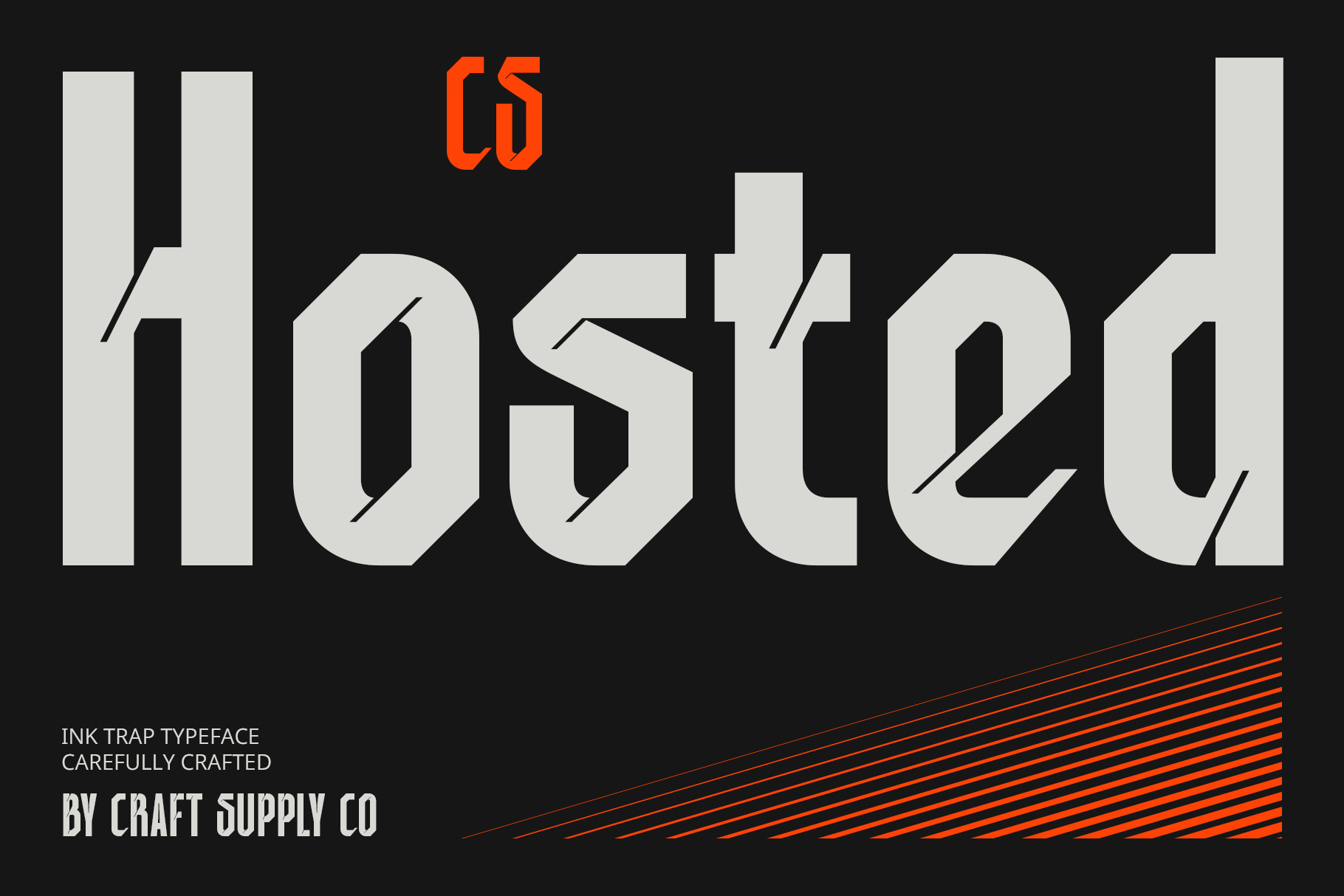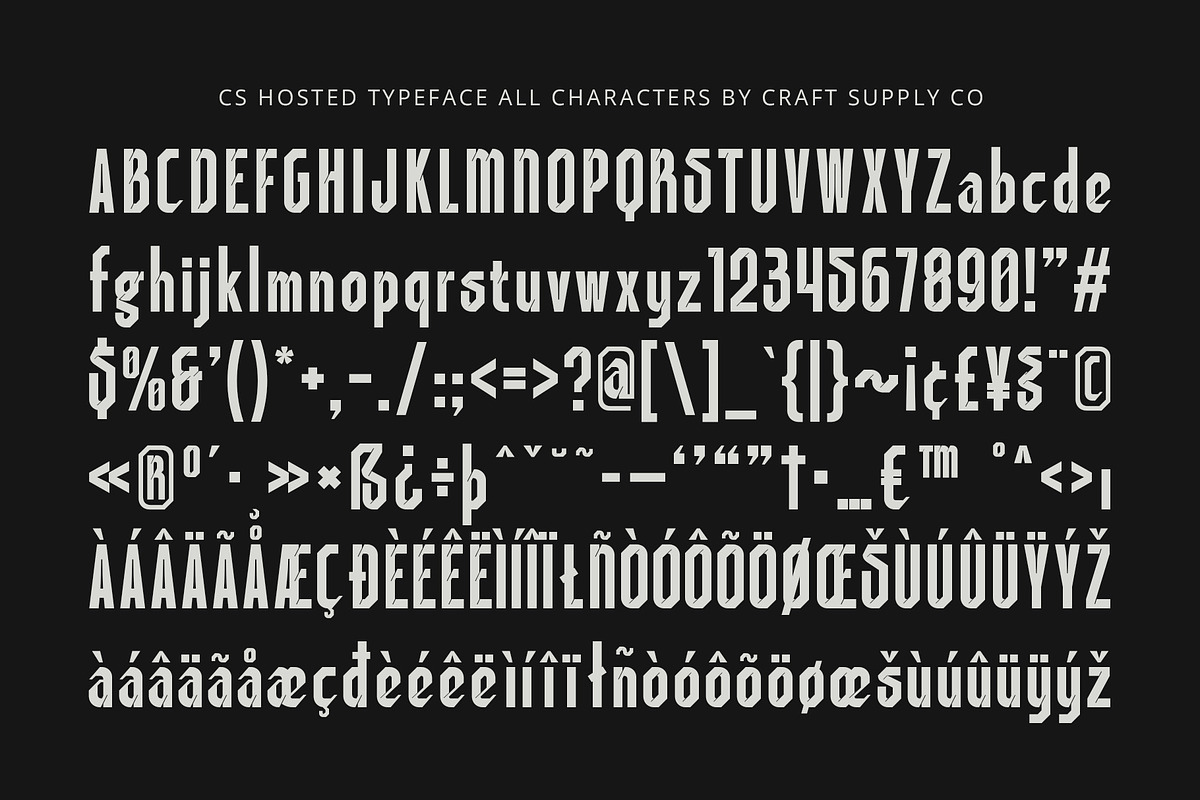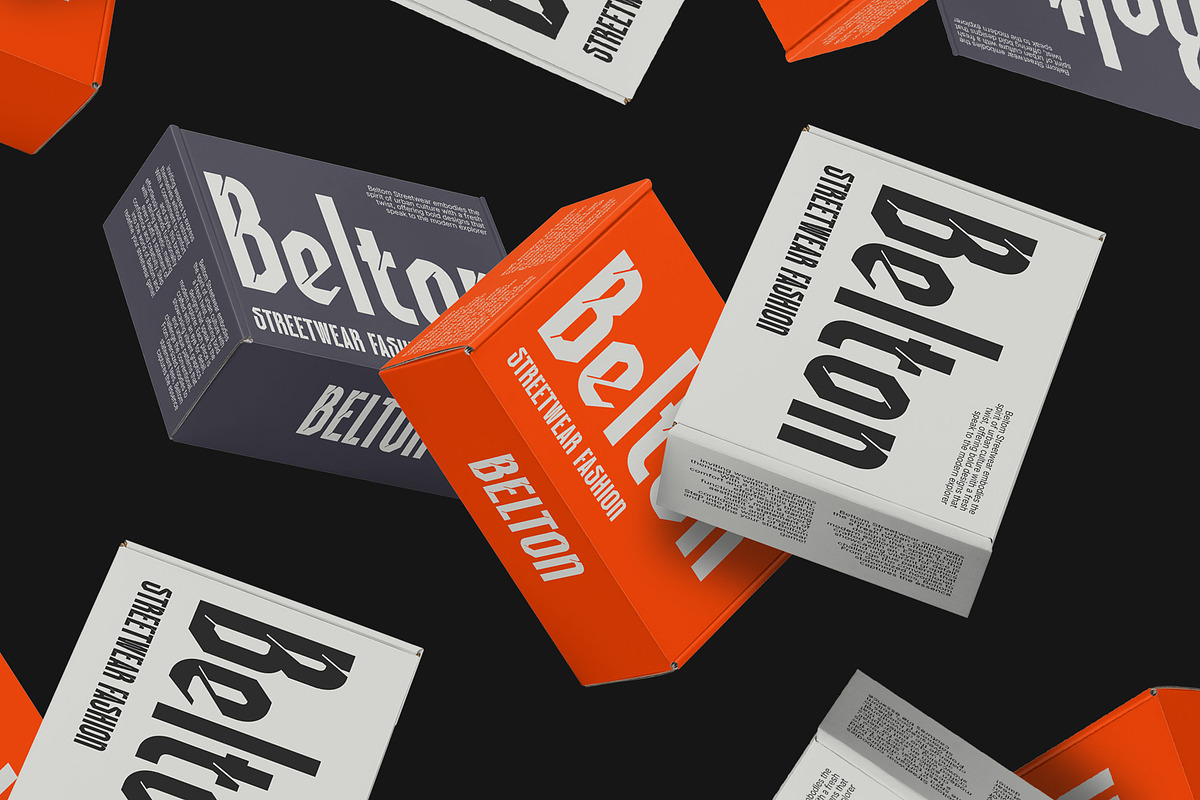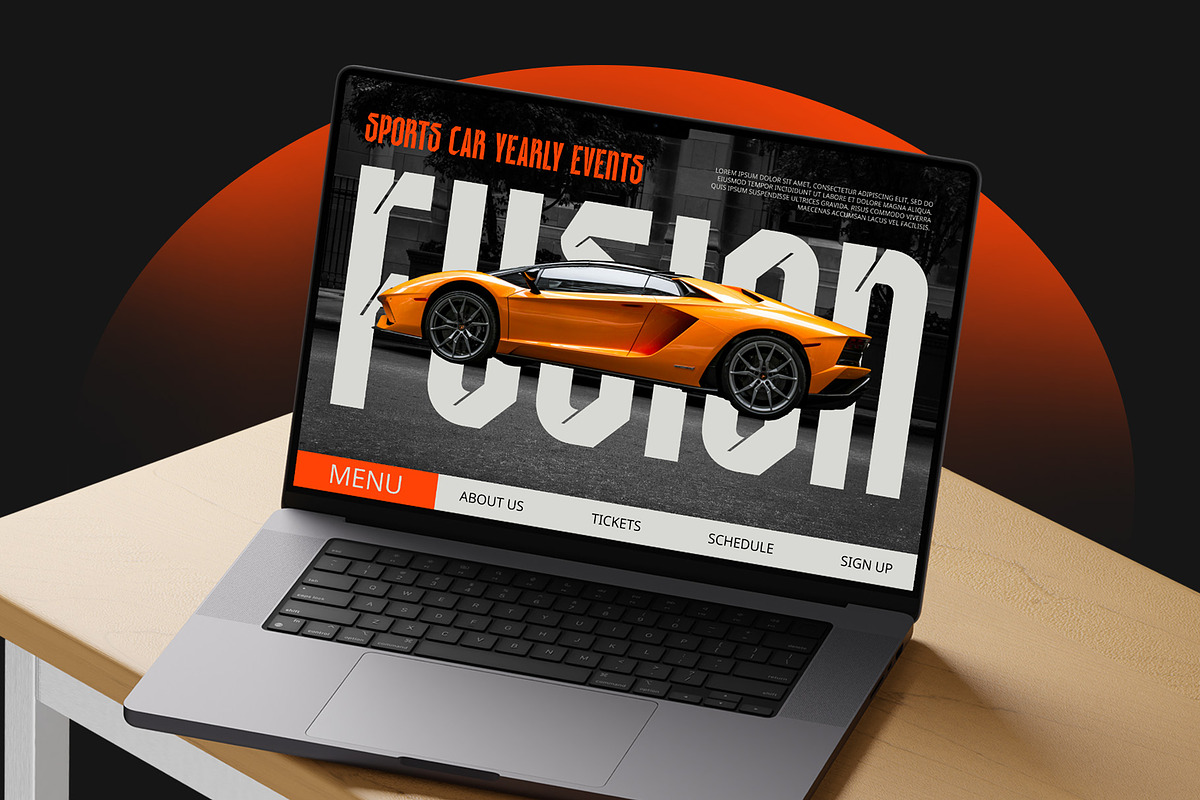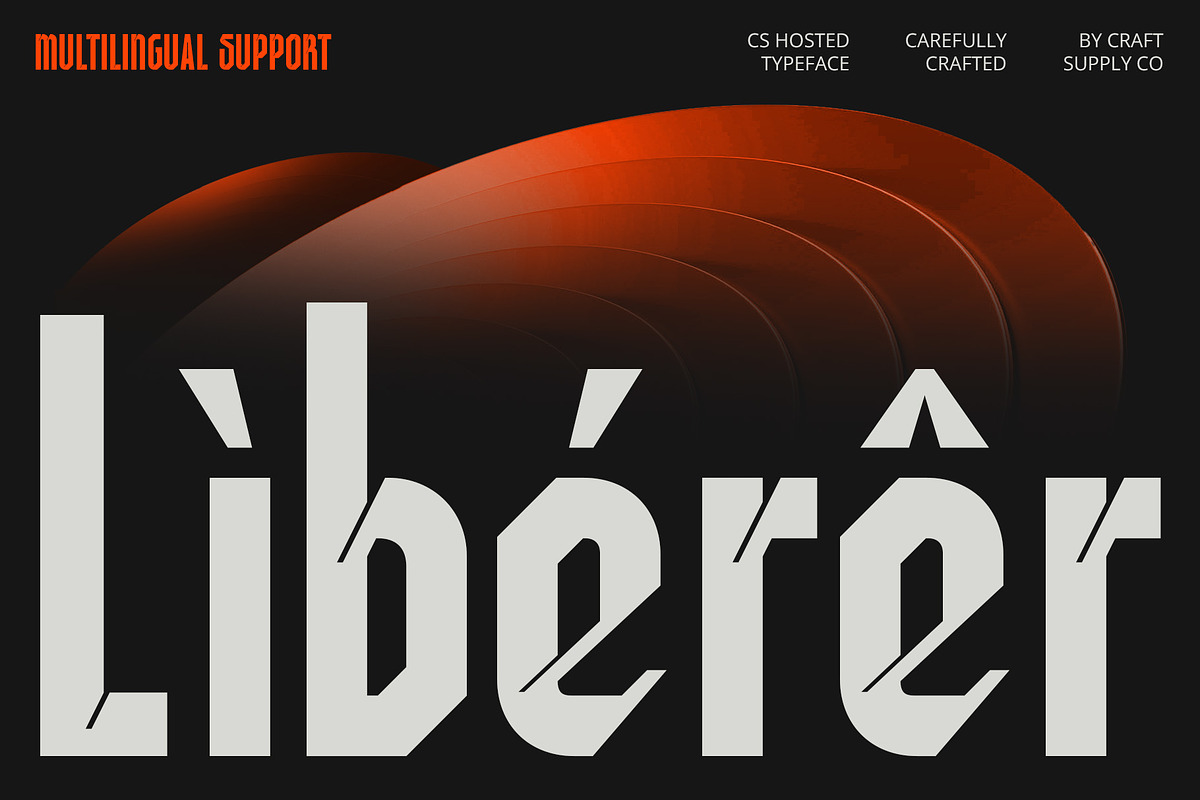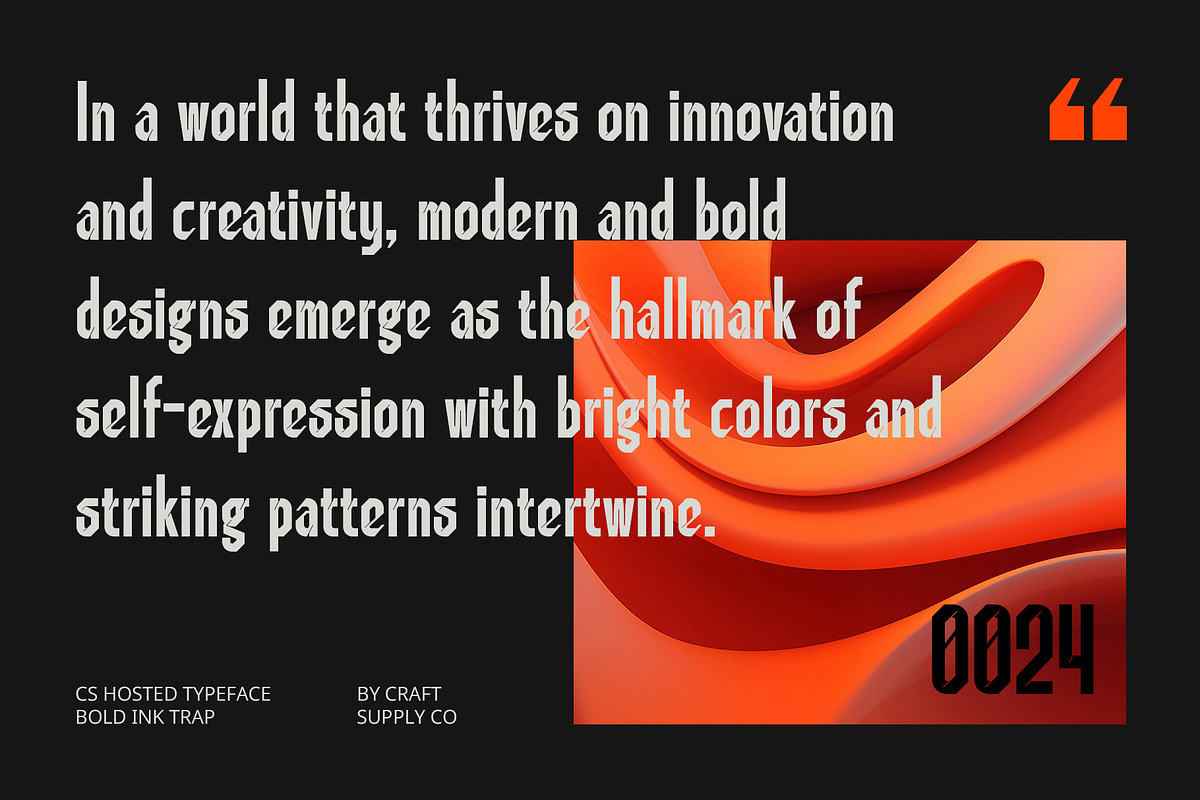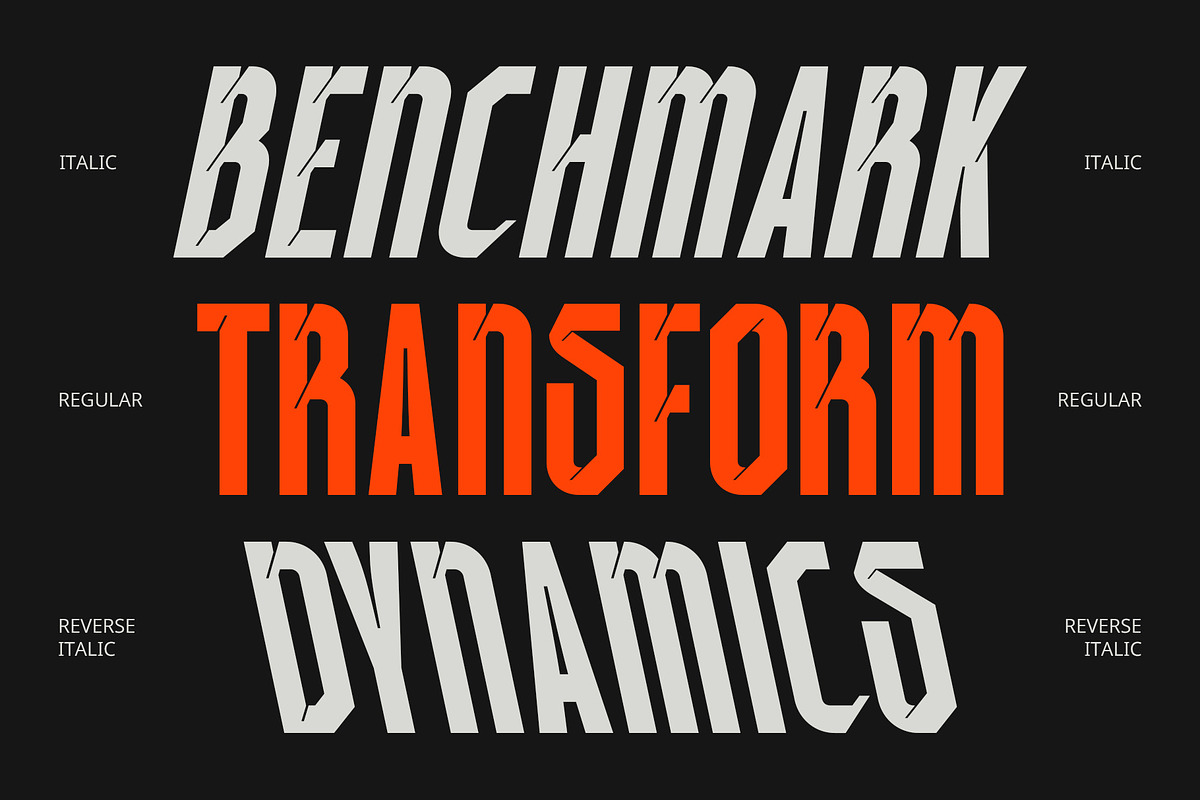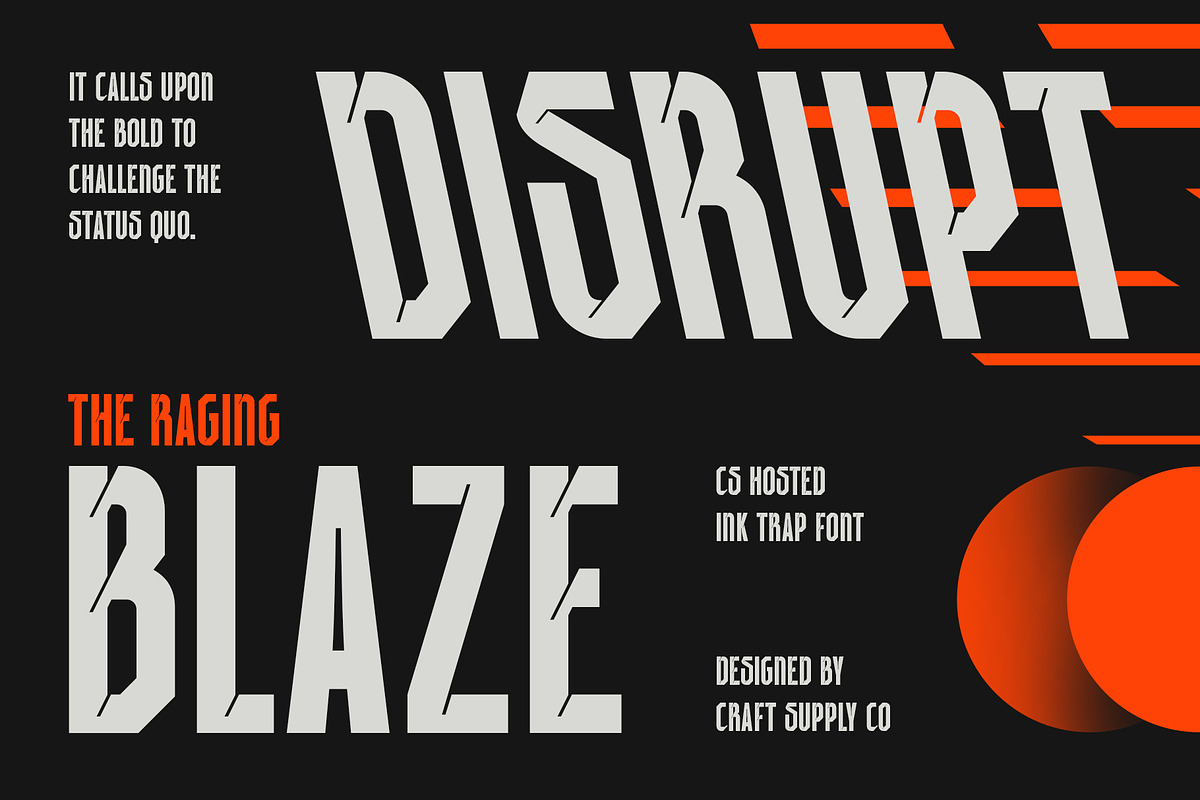
CS Hosted – Inktrap Font
CS Hosted – Bold Inktrap Sans Serif Font
Strong Masculine Character CS Hosted is a modern sans serif font that showcases bold inktrap forms, exuding a strong and masculine character. Its distinctive inktrap design gently softens sharp corners, creating a unique balance between prominence and approachability, making it a standout choice for various design applications.
Dominant Presence for Impactful Design With its thick proportions, CS Hosted delivers a dominant and confident presence, ideal for projects that require strong visual appeal. Whether for product branding, eye-catching headlines, or impactful marketing materials, this font ensures that your message resonates with strength and assertiveness.
Versatile Applications for Modern Needs The masculine impression conveyed by CS Hosted makes it a perfect fit for designs aimed at expressing power and reliability. Its versatility allows it to shine across various applications, from advertising to packaging, effectively combining modernity with functionality in a bold style.
A Perfect Choice for Strong Branding CS Hosted successfully merges contemporary aesthetics with practical design, making it an excellent choice for brands looking to make a lasting impression. Whether you’re creating promotional materials or designing a striking logo, this font provides the robust foundation needed to elevate your visual identity.
- CS Hosted Regular
- CS Hosted Italic
- CS Hosted Reverse Italic